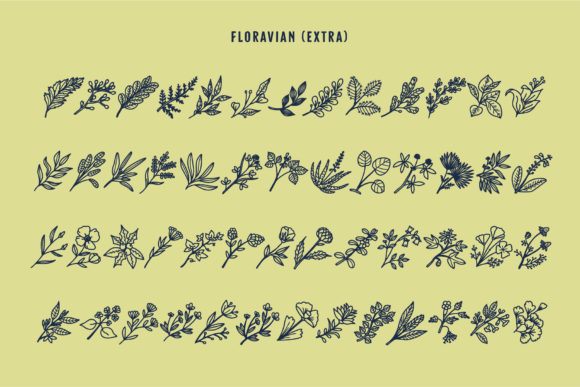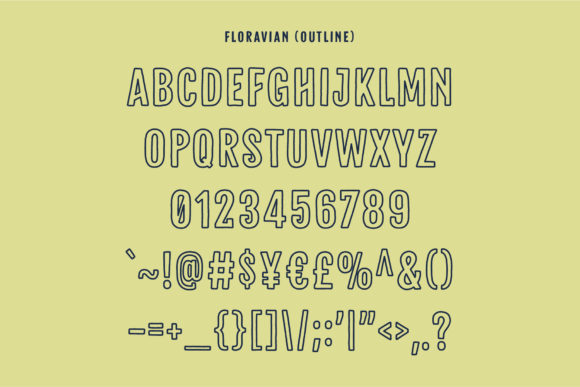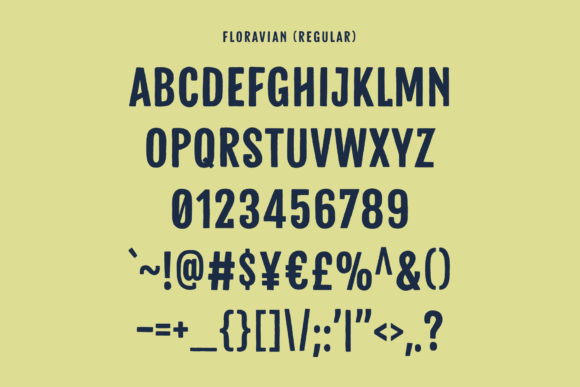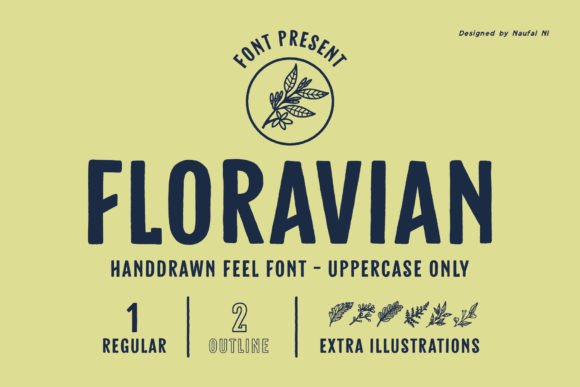
Introduction to Floravian Font
Floravian is a strong display font.
It has a retro and vintage feel and comes in two styles: regular and outline This amazing font is perfect for logos, packaging, posters, t-shirt and much more.
Floravian Font offers exceptional quality and versatility, making it a valuable addition to your design toolkit. Whether you’re creating for personal projects or commercial use, Floravian Font delivers professional results.